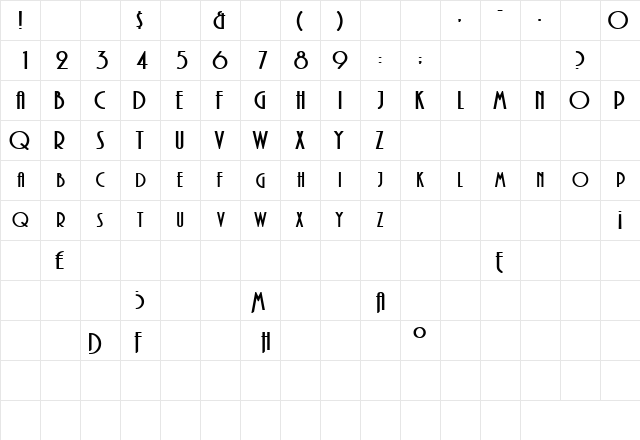
PremireAlternateSCapsSSK Bold
Design Context for PremireAlternateSCapsSSK Typeface
PremireAlternateSCapsSSK is a composed and adaptable typeface that performs quietly and consistently across a wide range of design contexts. The heavy weight commands attention and anchors typographic hierarchies.